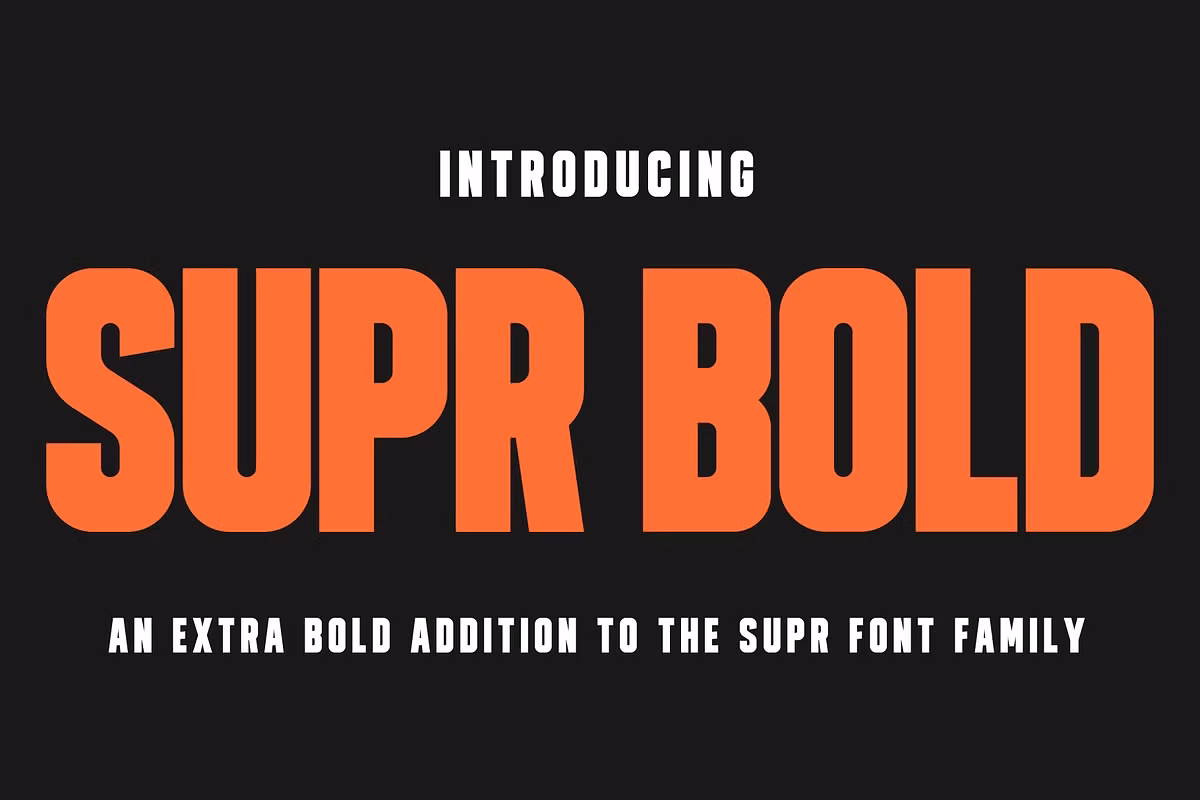
SUPR - Bold Condensed Display Font Free Download
SUPR - Bold Condensed Display Font Free Download is a powerful and contemporary typeface designed to make a bold statement. Featuring condensed letterforms and a strong presence, this font is perfect for headlines, posters, logos, branding, and any design project that needs to command attention.
With its high impact and modern look, SUPR is ideal for tech brands, sports logos, creative campaigns, or any design that requires a striking and professional font. Its condensed style allows for efficient use of space while maintaining legibility and style.